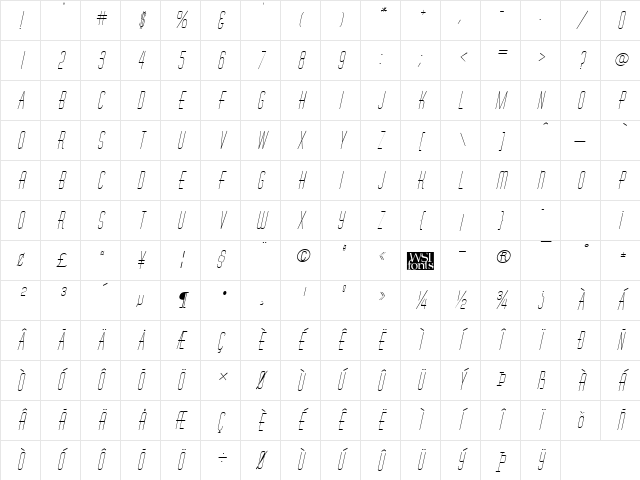
Melanin kursiv
Style: kursiv
Melanin Family
Melanin kursiv
Design Context for Melanin
Melanin is a composed and adaptable typeface that performs quietly and consistently across a wide range of design contexts. The slanted form adds forward momentum and visual energy.
Pro Tip: Use Melanin for emphasis, pull quotes, and subheadings where its slanted energy can add rhythm to the layout.